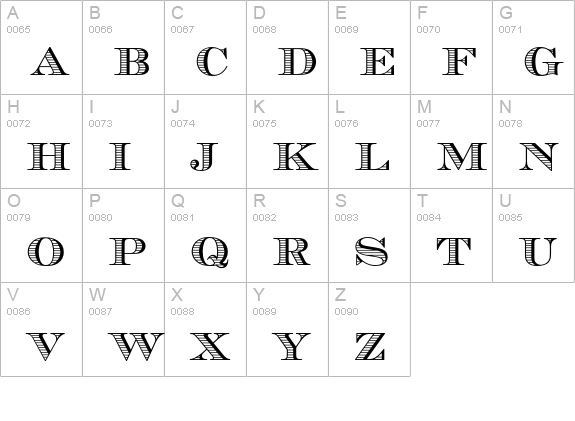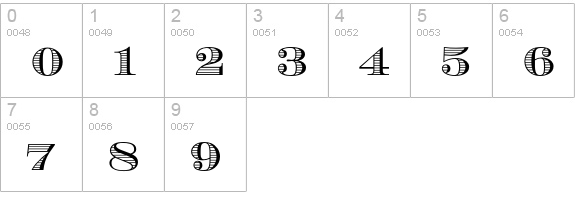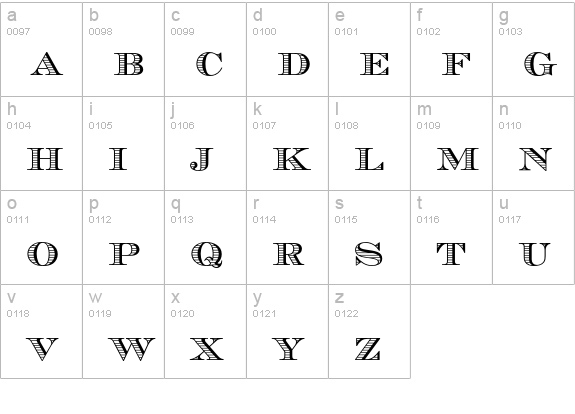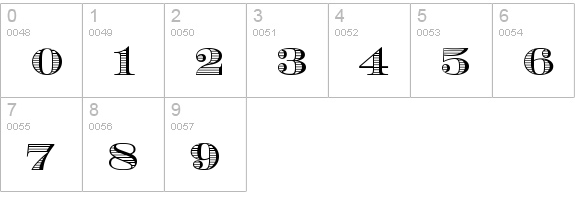
EscorialEF Font Details
EscorialEF font is a beautifully crafted typeface that exudes elegance and sophistication. Its classic yet modern design makes it perfect for a wide range of projects, from branding to editorial design. The sleek lines and subtle curves of EscorialEF font give it a timeless appeal that is sure to elevate any design it is used in. What sets EscorialEF font apart is not only its impeccable design, but also the fact that it is available for free download at FontsMarket.com. This means that you can easily access this stunning typeface and incorporate it into your projects without any cost. Whether you are a designer looking to add a touch of refinement to your work or a business owner in need of a stylish font for your branding, EscorialEF font is the perfect choice. Download it today and see the difference it can make in your designs.